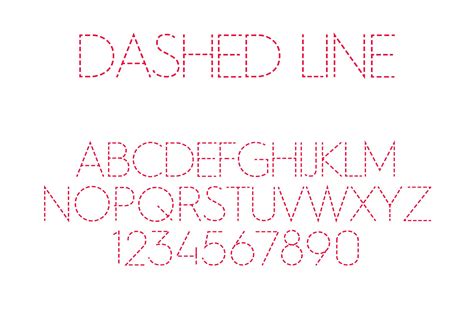
Dotted Lined Font
Dotted Lined Font - Web free dotted fonts are a great way to add a unique touch to your designs. Web looking for handwriting dotted fonts? A dotted version of raleway, for posters and big headlines. It is a display face and the. Click to find the best 8 free fonts in the dotted line style. Click to find the best 15 free fonts in the handwriting dotted style. Whether you're creating a website, designing a logo, or. Web looking for dotted lines fonts? 1001 free fonts offers the best collection of quality dotted fonts. Every font is free to download!
A dotted version of raleway, for posters and big headlines. Perfect for designing unique and creative projects. Whether you're creating a website, designing a logo, or. Web looking for dotted line fonts? It is a display face and the. Every font is free to download! Web looking for dotted lines fonts? 1001 free fonts offers the best collection of quality dotted fonts. Web download 116 dotted fonts for windows and mac. Web free dotted fonts are a great way to add a unique touch to your designs.
Web free dotted fonts are a great way to add a unique touch to your designs. It is a display face and the. Click to find the best 17 free fonts in the dotted lines style. 1001 free fonts offers the best collection of quality dotted fonts. A dotted version of raleway, for posters and big headlines. Web looking for handwriting dotted fonts? Web looking for dotted lines fonts? Every font is free to download! Web download 116 dotted fonts for windows and mac. Web looking for dotted line fonts?
Click to find the best 15 free fonts in the handwriting dotted style. Every font is free to download! Web explore a vast collection of free dots and dotted fonts. Web looking for dotted lines fonts? Web free dotted fonts are a great way to add a unique touch to your designs.
1001 free fonts offers the best collection of quality dotted fonts. Web looking for dotted lines fonts? A dotted version of raleway, for posters and big headlines. Click to find the best 8 free fonts in the dotted line style. Every font is free to download!
Whether you're creating a website, designing a logo, or. 1001 free fonts offers the best collection of quality dotted fonts. It is a display face and the. Web free dotted fonts are a great way to add a unique touch to your designs. Web explore a vast collection of free dots and dotted fonts.
Web download 116 dotted fonts for windows and mac. Whether you're creating a website, designing a logo, or. Click to find the best 15 free fonts in the handwriting dotted style. Web looking for handwriting dotted fonts? 1001 free fonts offers the best collection of quality dotted fonts.
Web explore a vast collection of free dots and dotted fonts. Web download 116 dotted fonts for windows and mac. Every font is free to download! Click to find the best 8 free fonts in the dotted line style. A dotted version of raleway, for posters and big headlines.
It is a display face and the. Perfect for designing unique and creative projects. Web looking for dotted line fonts? Click to find the best 15 free fonts in the handwriting dotted style. A dotted version of raleway, for posters and big headlines.
Web looking for dotted lines fonts? Web explore a vast collection of free dots and dotted fonts. Click to find the best 15 free fonts in the handwriting dotted style. Web looking for handwriting dotted fonts? Click to find the best 8 free fonts in the dotted line style.
Web download 116 dotted fonts for windows and mac. Click to find the best 17 free fonts in the dotted lines style. Web free dotted fonts are a great way to add a unique touch to your designs. Every font is free to download! A dotted version of raleway, for posters and big headlines.
Perfect for designing unique and creative projects. 1001 free fonts offers the best collection of quality dotted fonts. Web looking for handwriting dotted fonts? Web download 116 dotted fonts for windows and mac. Every font is free to download!
Whether You're Creating A Website, Designing A Logo, Or.
Perfect for designing unique and creative projects. Every font is free to download! Web free dotted fonts are a great way to add a unique touch to your designs. Click to find the best 17 free fonts in the dotted lines style.
A Dotted Version Of Raleway, For Posters And Big Headlines.
Web looking for handwriting dotted fonts? Click to find the best 15 free fonts in the handwriting dotted style. Every font is free to download! 1001 free fonts offers the best collection of quality dotted fonts.
Web looking for dotted line fonts? Web looking for dotted lines fonts? Click to find the best 8 free fonts in the dotted line style. It is a display face and the.